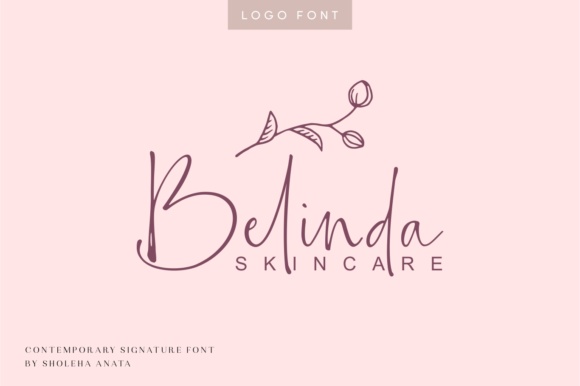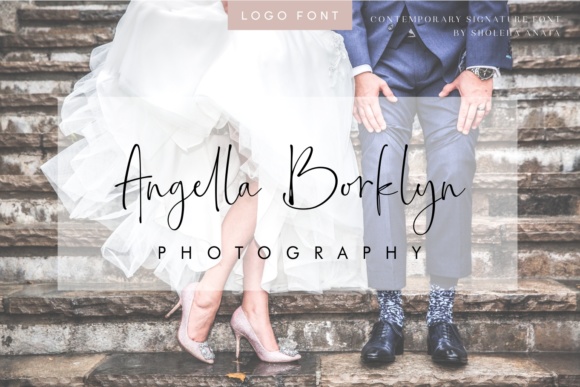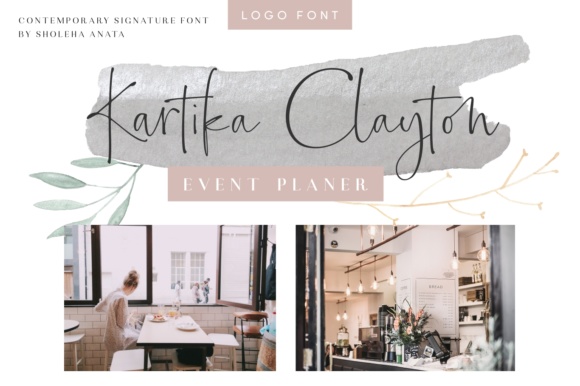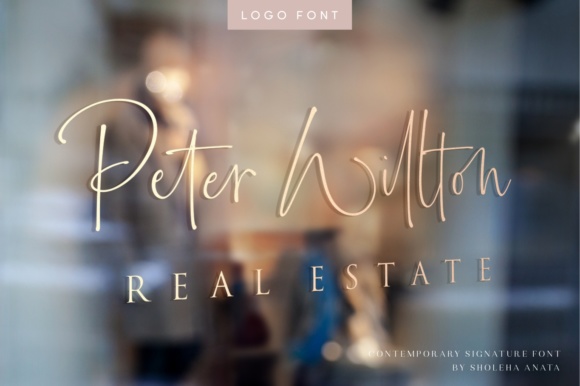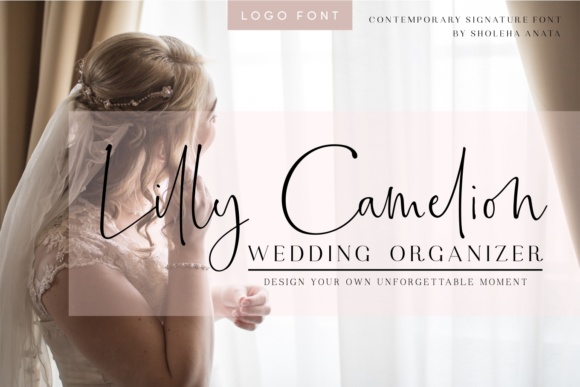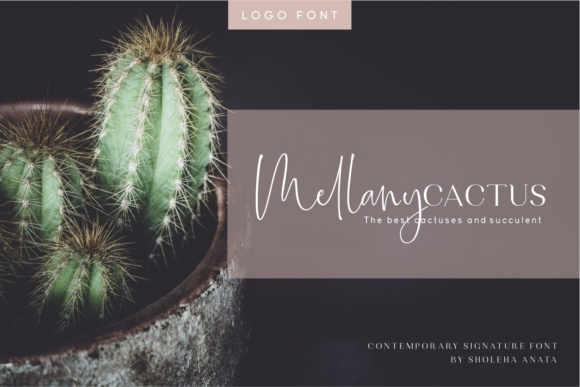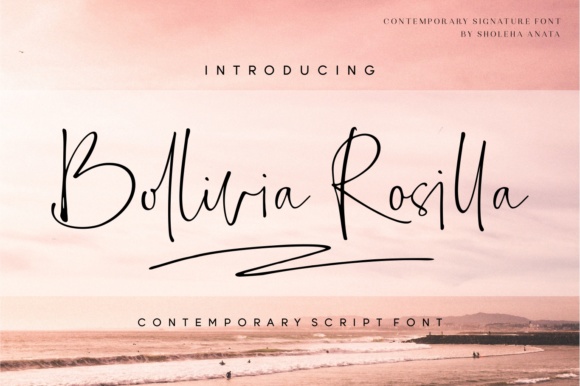
Bollivia Rosilla Font: Elevate Your Designs with Elegance and Sophistication
In the world of typography, fonts play a crucial role in conveying the tone and personality of a design. For designers and crafters seeking to infuse their projects with a touch of femininity, sexiness, and elegance, Bollivia Rosilla font is an exceptional choice. This contemporary script font has been gaining attention for its unique blend of sophistication and charm, making it an ideal selection for various design applications.
What is Bollivia Rosilla Font?
Bollivia Rosilla is a modern script font characterized by its elegant style. It boasts fluid lines, intricate details, and a charming aesthetic that instantly elevates any design. The font’s contemporary appeal, coupled with its classic undertones, makes it versatile and suitable for a wide range of projects, from fashion and beauty branding to wedding and event stationery.
Key Features of Bollivia Rosilla Font
- Elegant and Sophisticated: Bollivia Rosilla exudes elegance and sophistication, making it perfect for designs that require a high-end feel.
- Feminine and Sexy: The font’s curves and swirls lend a feminine and alluring quality, ideal for brands or projects targeting a female audience or conveying a sense of glamour.
- Contemporary Style: Despite its classic undertones, Bollivia Rosilla has a distinctly modern appeal, ensuring your designs feel current and fresh.
- Versatile: This font can be used across various mediums, including digital platforms, print materials, and handmade crafts.
Use Cases for Bollivia Rosilla Font
The versatility of Bollivia Rosilla font makes it suitable for a myriad of design projects. Here are some popular use cases:
- Fashion and Beauty Branding: Perfect for logos, packaging, and marketing materials in the fashion and beauty industries.
- Wedding and Event Stationery: Ideal for wedding invitations, save-the-date cards, and other event-related stationery.
- Digital and Print Media: Suitable for magazine headers, blog titles, social media graphics, and any print or digital content requiring an elegant touch.
- Crafting and DIY Projects: Great for crafters and DIY enthusiasts creating handmade cards, scrapbooking, and other paper crafts.
Tips for Using Bollivia Rosilla Font Effectively
To maximize the impact of Bollivia Rosilla font in your designs, consider the following tips:
- Pair with Complementary Fonts: Combine Bollivia Rosilla with simpler fonts for body text to create visual hierarchy and balance.
- Adjust Font Sizes: Experiment with different font sizes to emphasize key messages or create a focal point.
- Utilize Color: Take advantage of Bollivia Rosilla’s elegant style by pairing it with a sophisticated color palette.
Bollivia Rosilla font is a stunning addition to any designer’s toolkit. Its elegant style, feminine and sexy appeal, and contemporary sophistication make it an excellent choice for a wide range of projects. Whether you’re a professional designer or a crafting enthusiast, Bollivia Rosilla is sure to elevate your designs and leave a lasting impression.